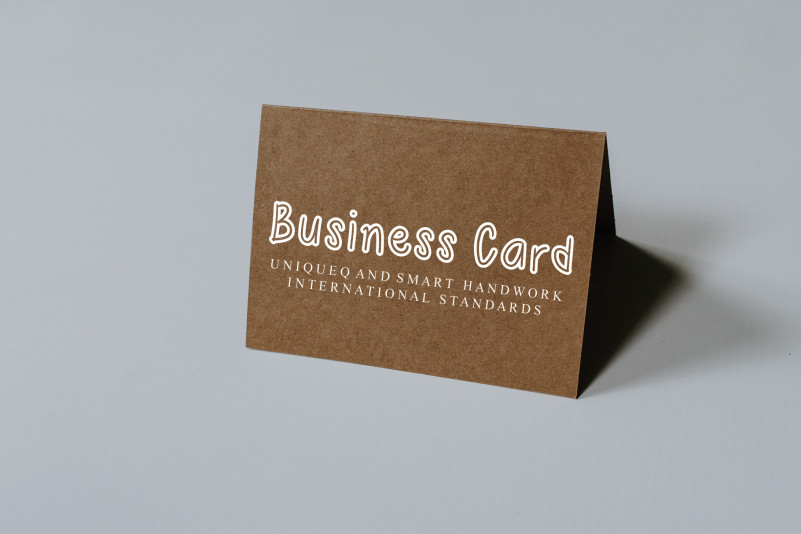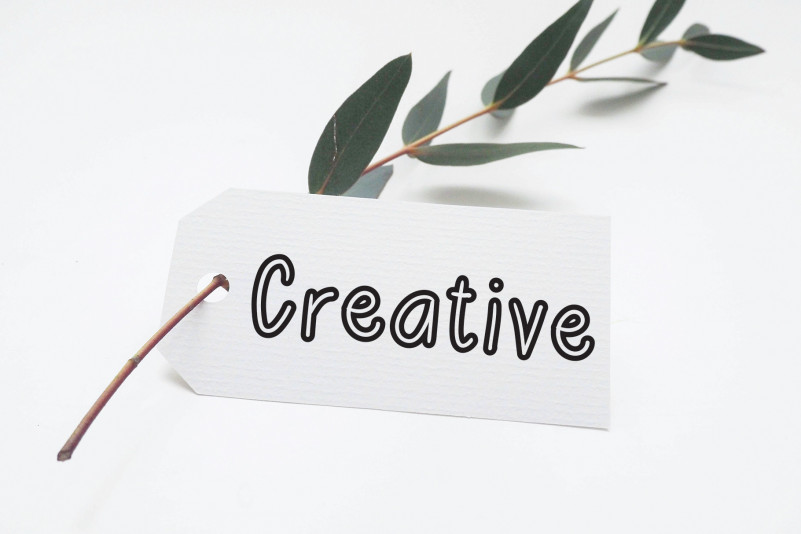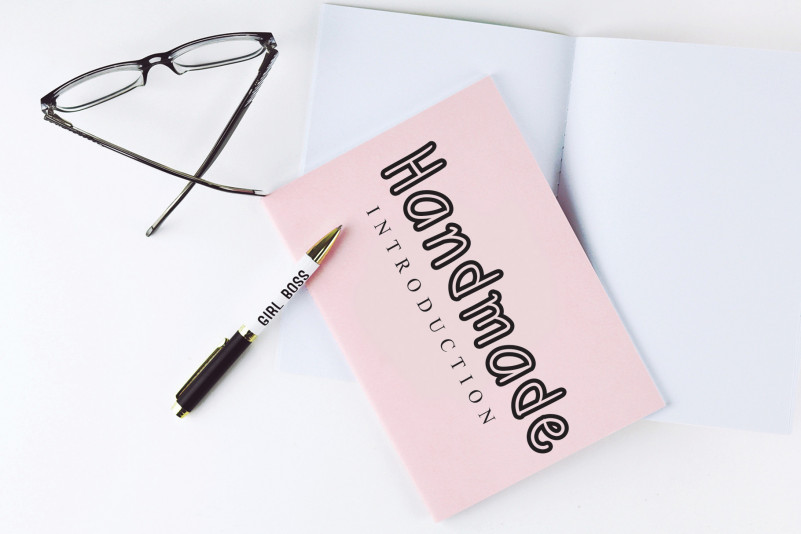
Rollina Flower Display Font
Rollina Flower Display Font is a classy and simple handwritten font. Fall in love with its incredibly versatile style and use it to create spectacular designs!